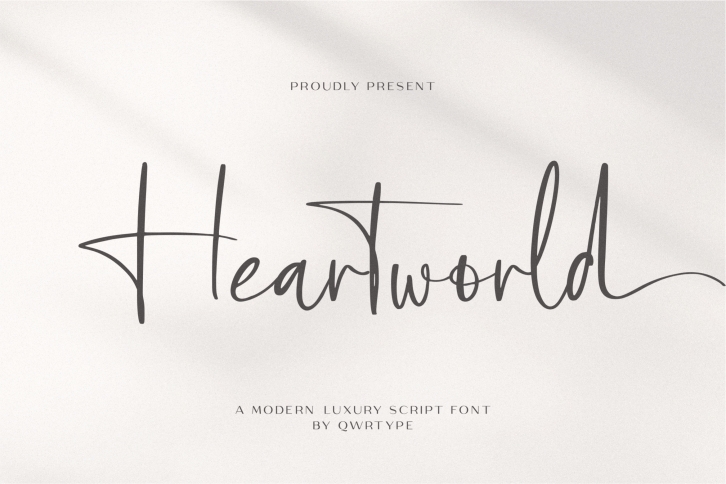
Proudly Present, Heartworld
Heartworld is a Modern Luxury Script Font
Heartworld is perfect for product packaging, branding project, megazine, social media, wedding, or just used to express words above the background.